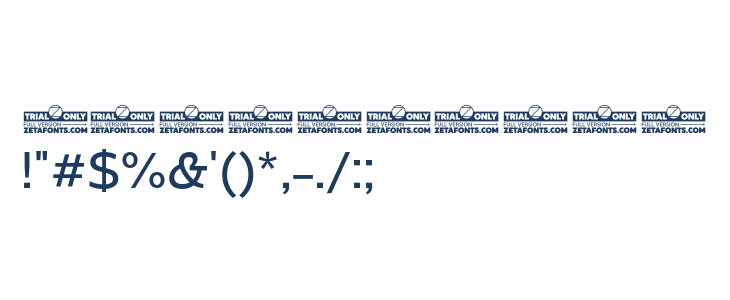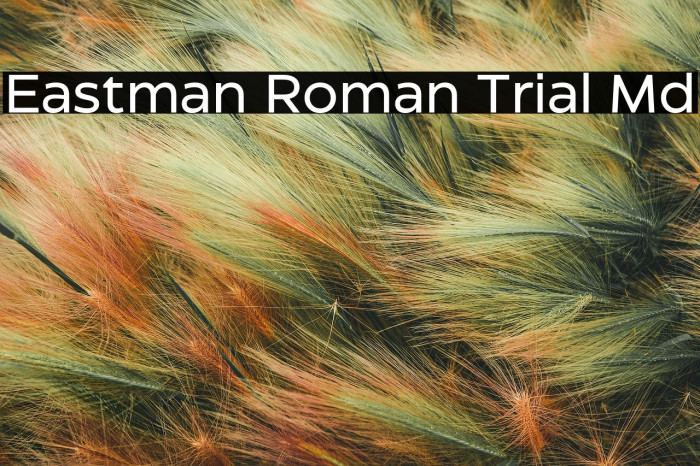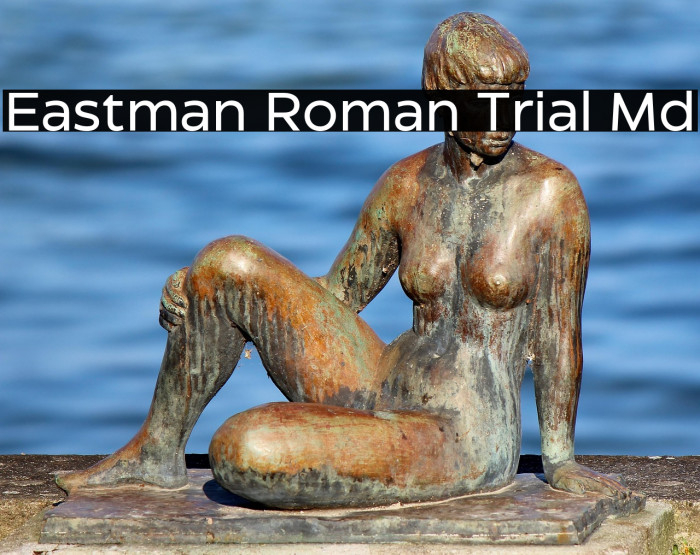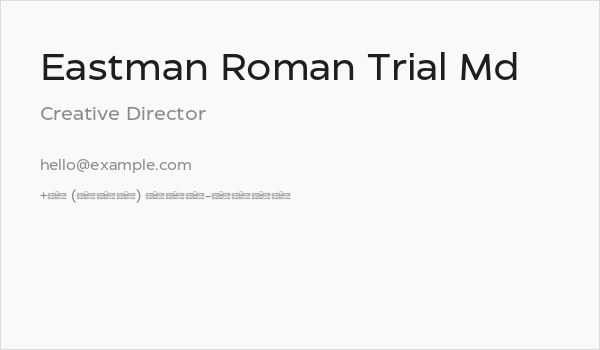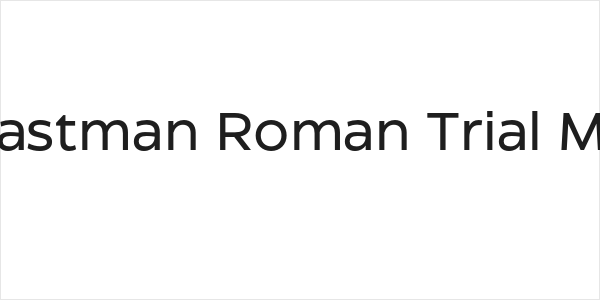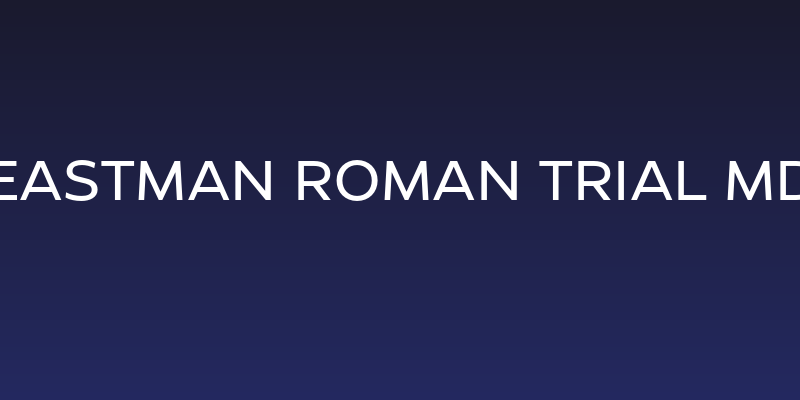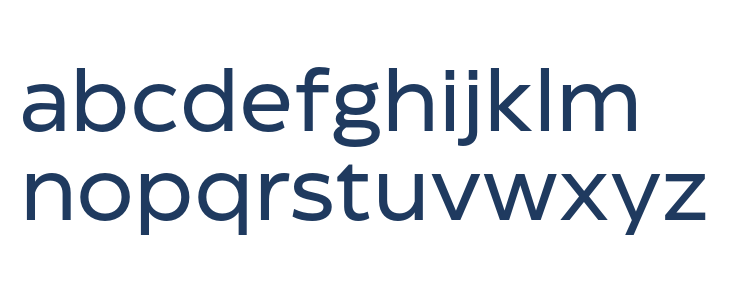
Eastman Roman Trial Md Font
Eastman Roman Trial Md Description
This typeface features a clean and modern design with a focus on readability and simplicity. The characters are well-balanced with consistent stroke widths, providing a harmonious appearance. The uppercase letters are bold and assertive, while the lowercase letters maintain a friendly and approachable feel. The numerals and special characters are designed to match the overall aesthetic, ensuring uniformity across all text. The font's geometric structure and open counters contribute to its legibility, making it suitable for a variety of applications.
| Proposed Projects | Ideal for branding, web design, advertising, and editorial projects where clarity and modernity are essential. |